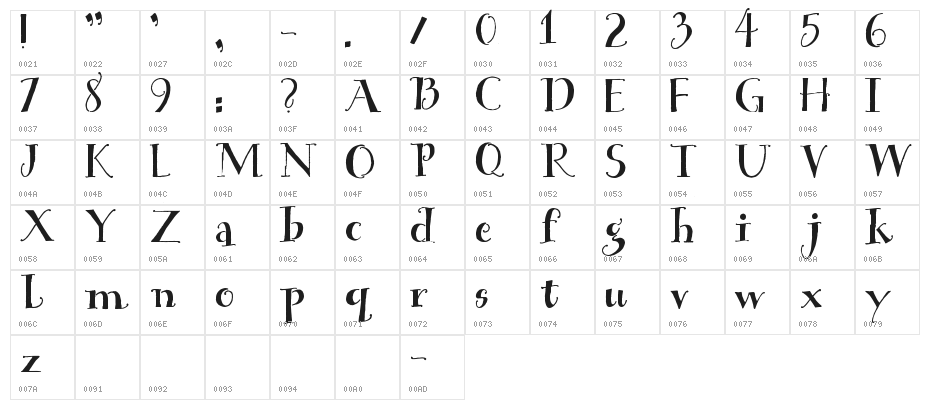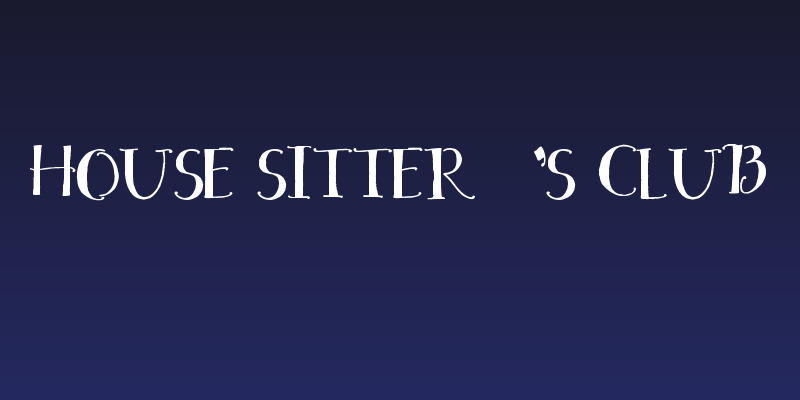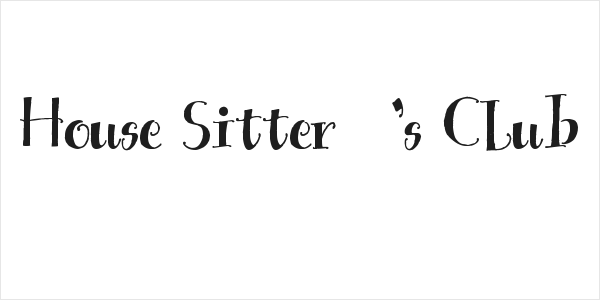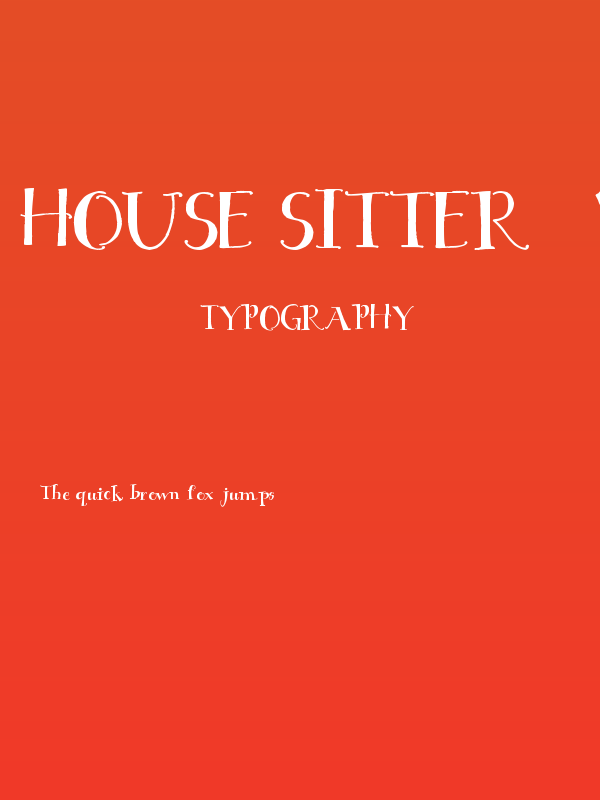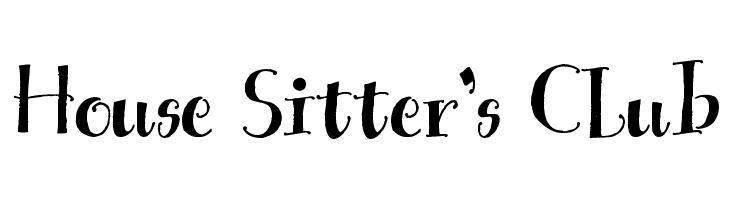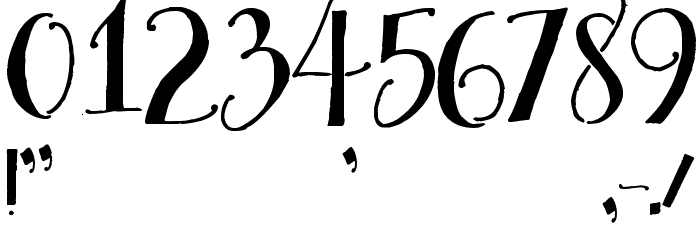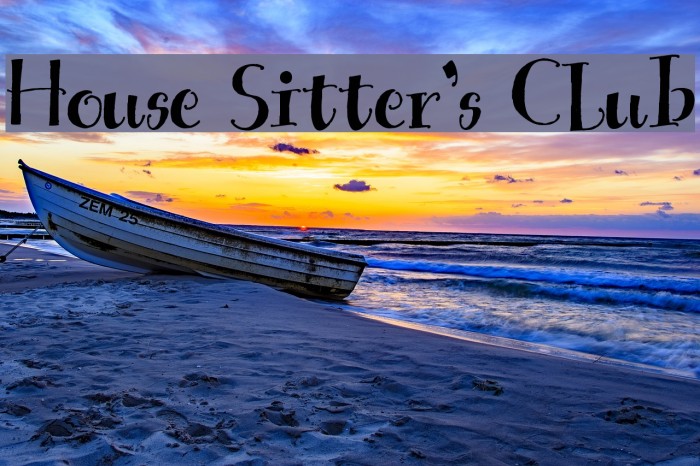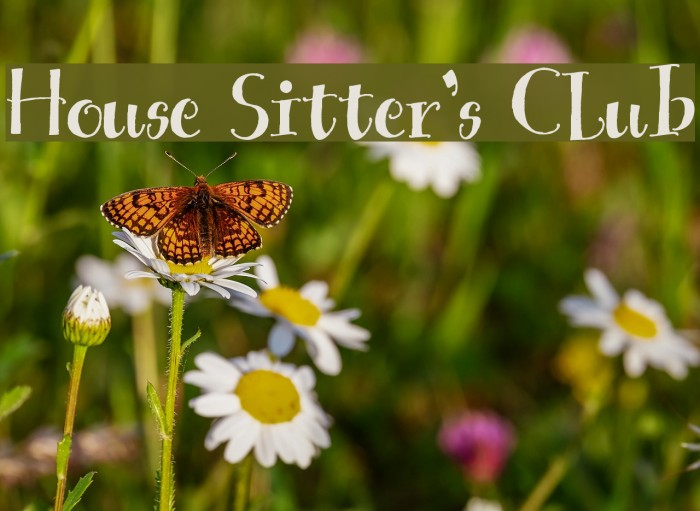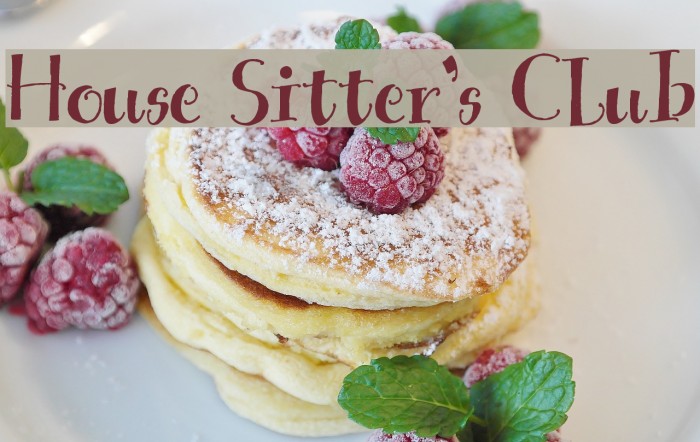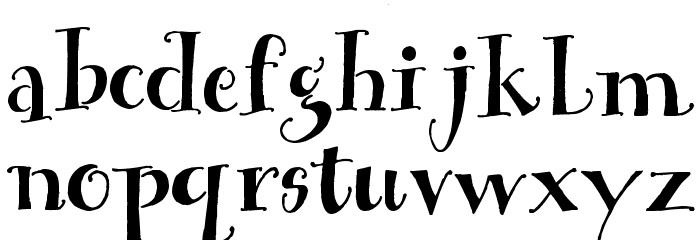
House Sitter's Club Font
House Sitter's Club Description
This font features a whimsical and artistic style, characterized by its playful curves and varying stroke widths. The uppercase letters exhibit a unique blend of bold and thin lines, creating a dynamic and eye-catching appearance. The lowercase letters maintain a consistent flow with elegant loops and swashes, adding a touch of sophistication. Numbers are bold and slightly exaggerated, enhancing readability while maintaining the font's artistic flair. Special characters are creatively designed, complementing the overall aesthetic. This font is ideal for projects that require a touch of creativity and elegance, such as invitations, branding, and artistic designs.
| Overall Style | Artistic |
| Use Case | Headlines, Logos, Artistic designs |
| Proposed Projects | Ideal for invitations, branding, artistic designs, and creative projects. |